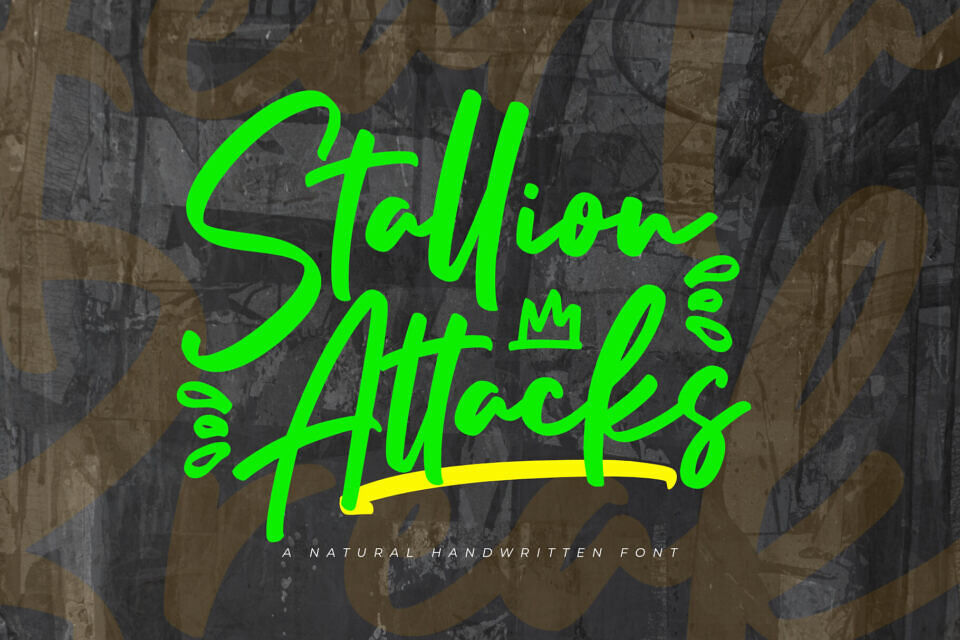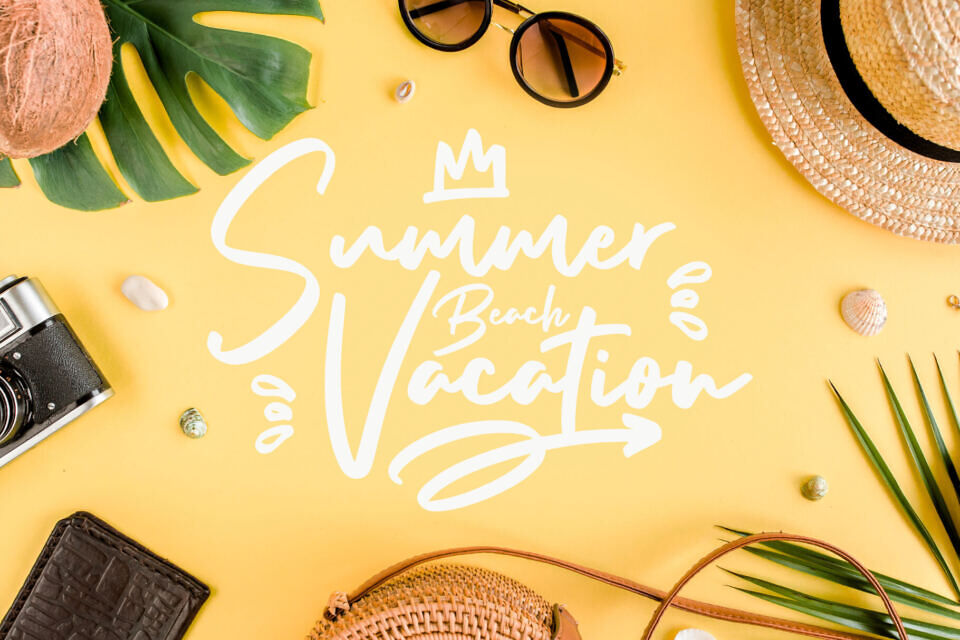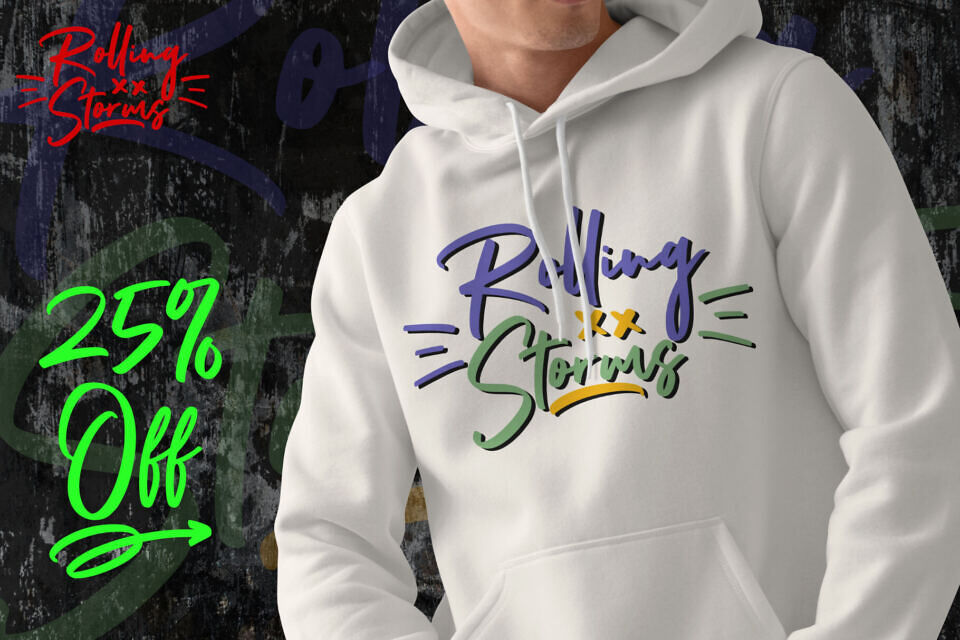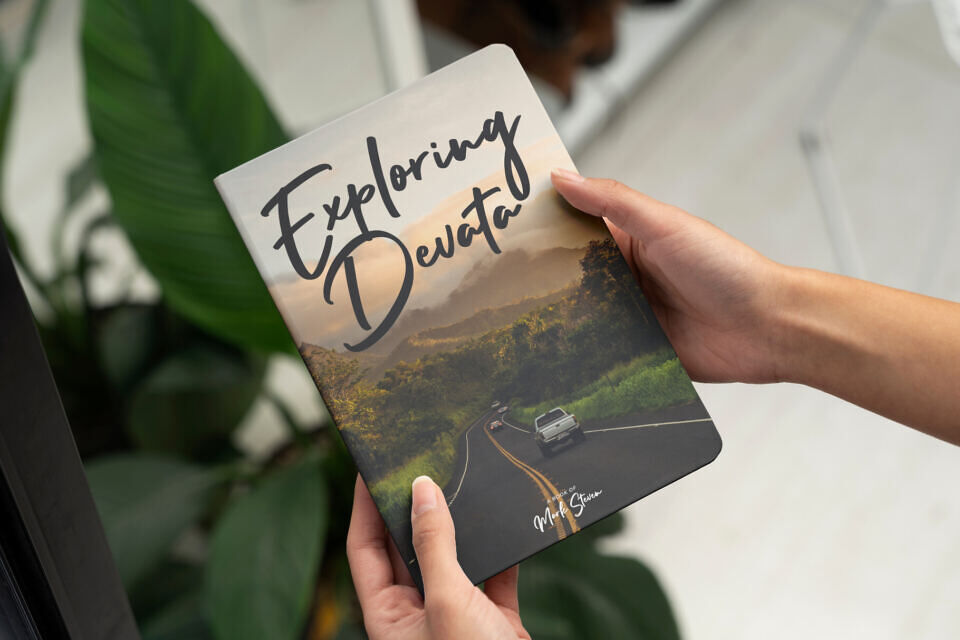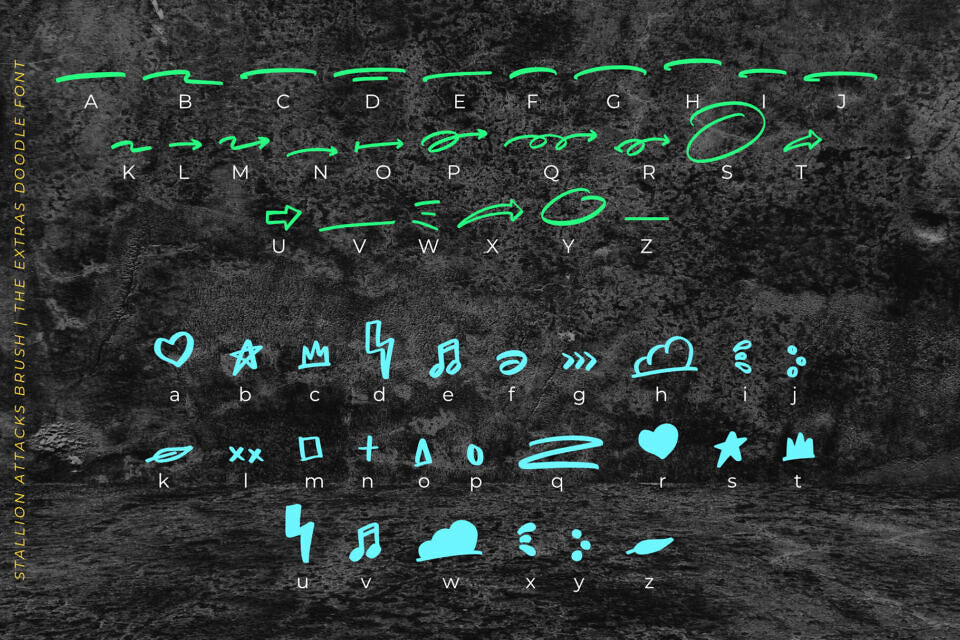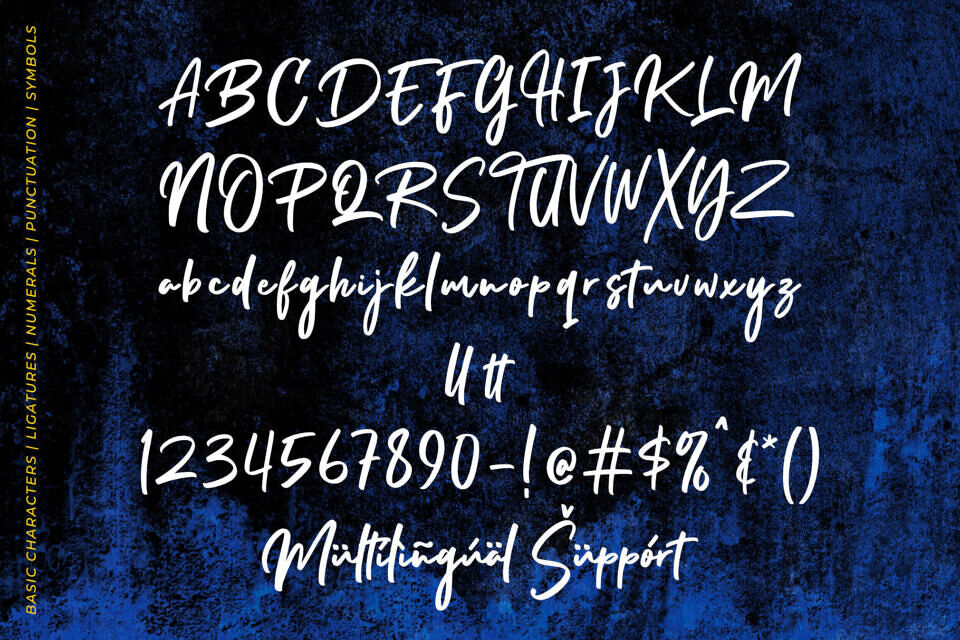
Meet Stallion Attacks, a stylish handwritten font that boasts strong and assertive characters, perfect for making a bold statement in branding, logotype, and design projects. This font’s confident strokes and distinctive style make it an ideal choice for those seeking to convey power and elegance through their typography.
Its robust letterforms exude confidence, making it a standout choice for fashion labels, high-end product packaging, or any brand that prides itself on being ahead of the curve. The font’s handwritten nature adds a personal touch, ensuring that your message is delivered with authenticity and impact.